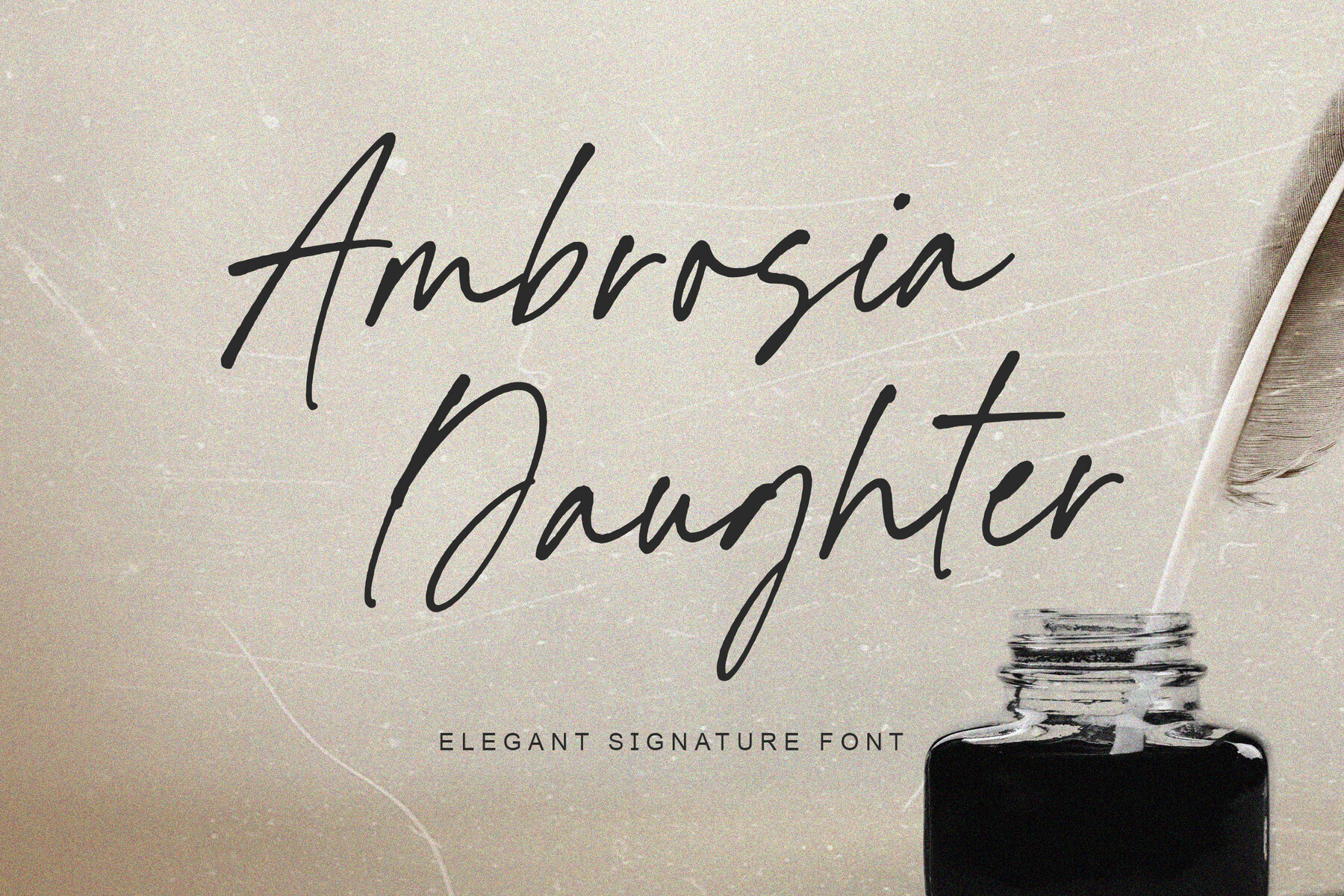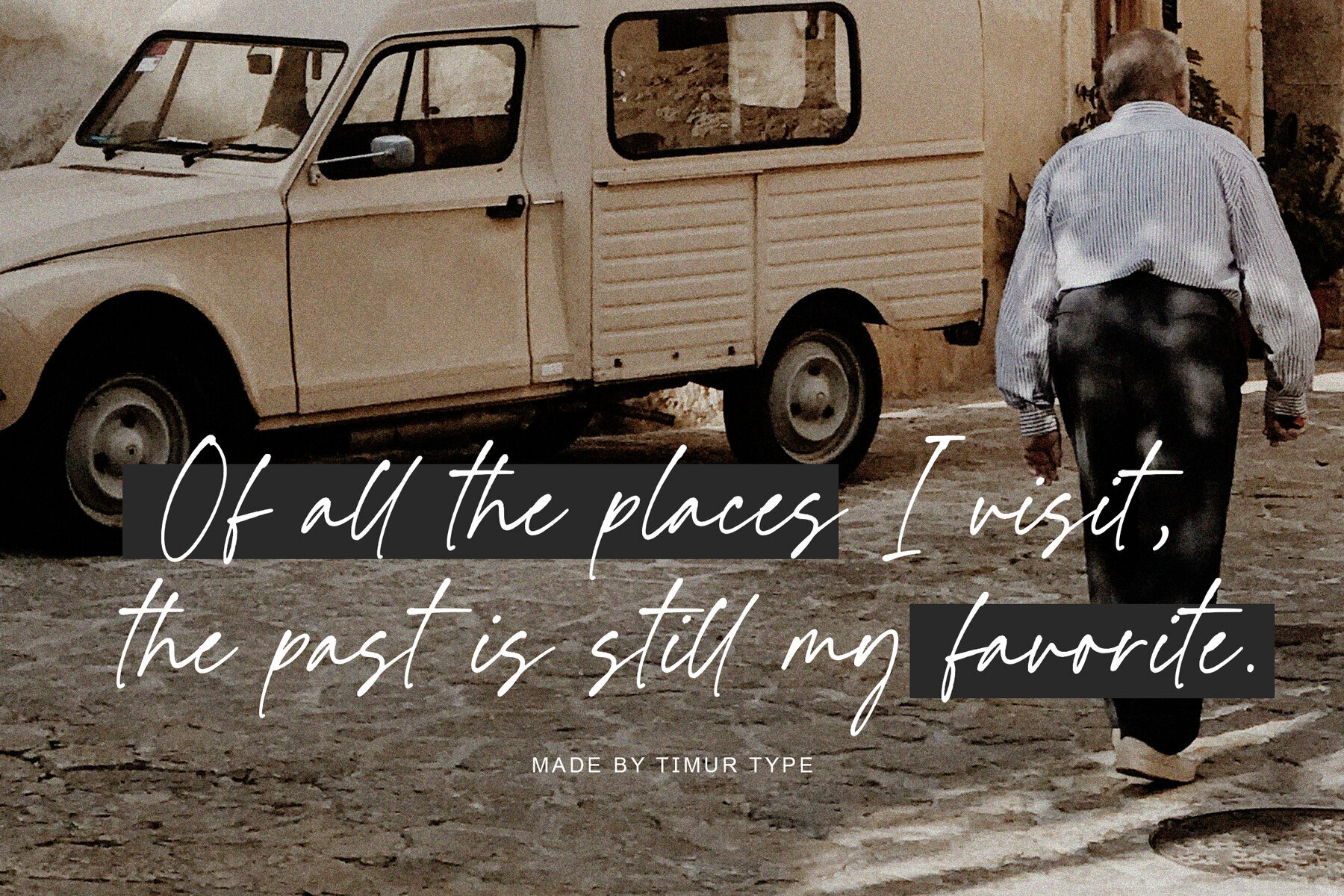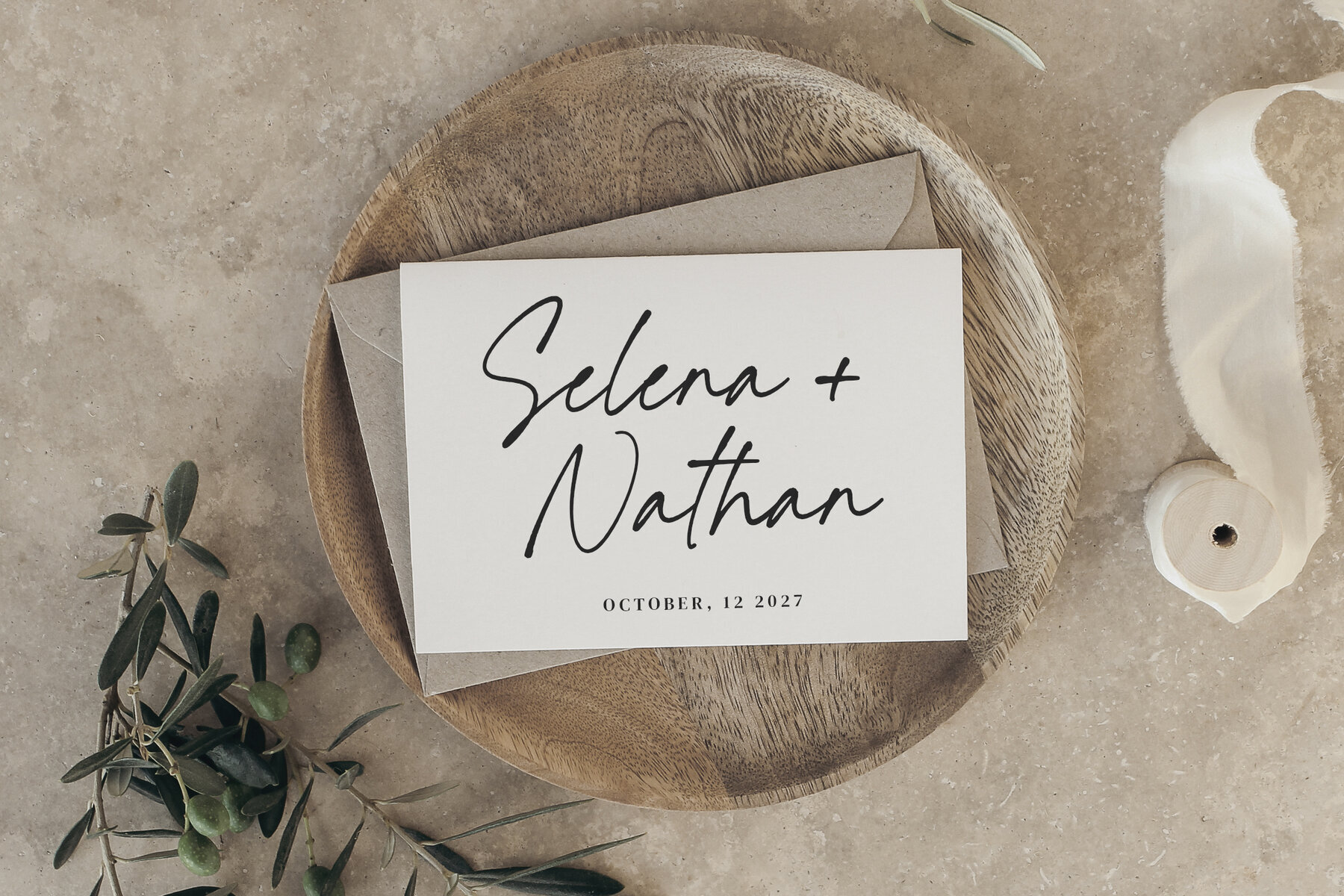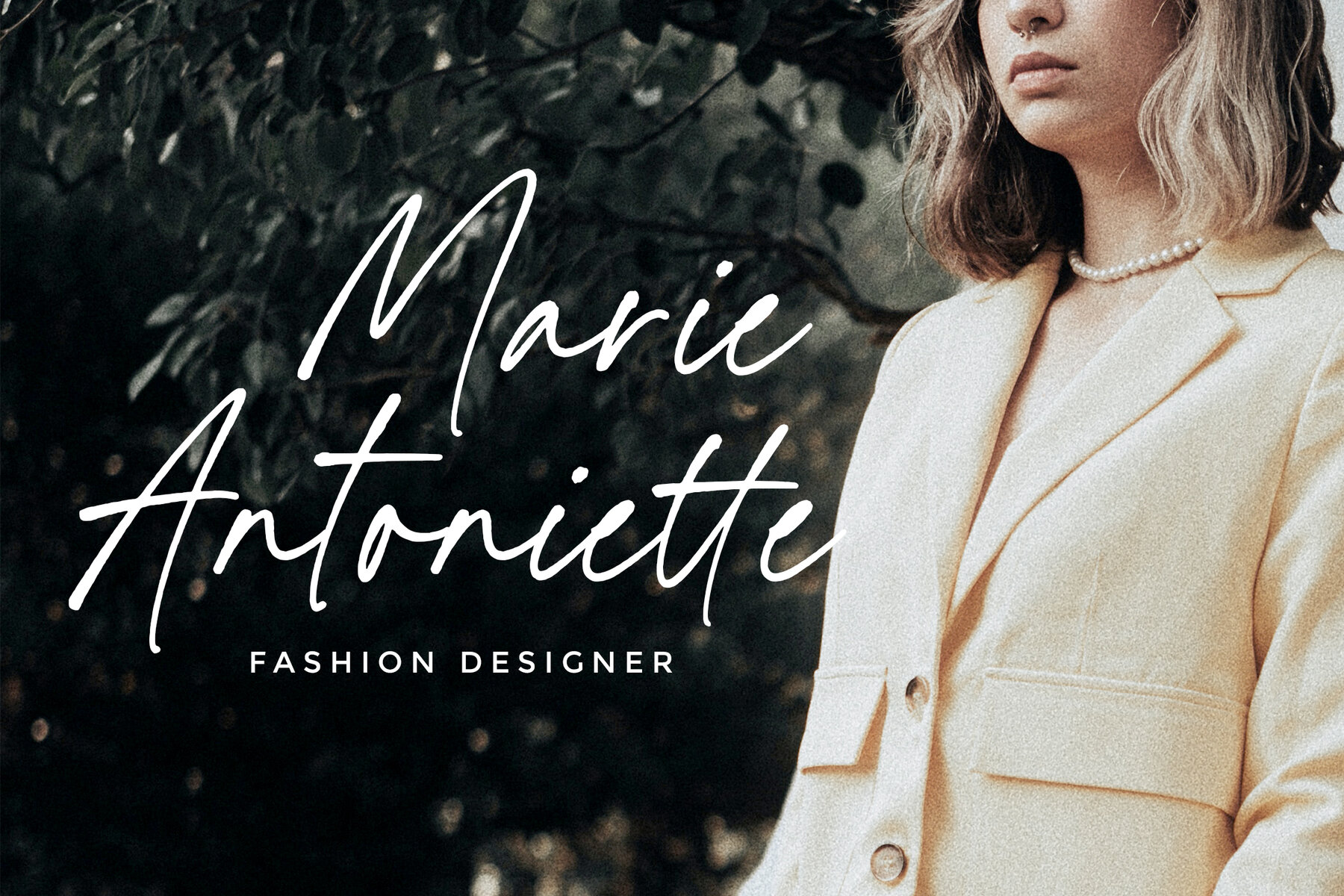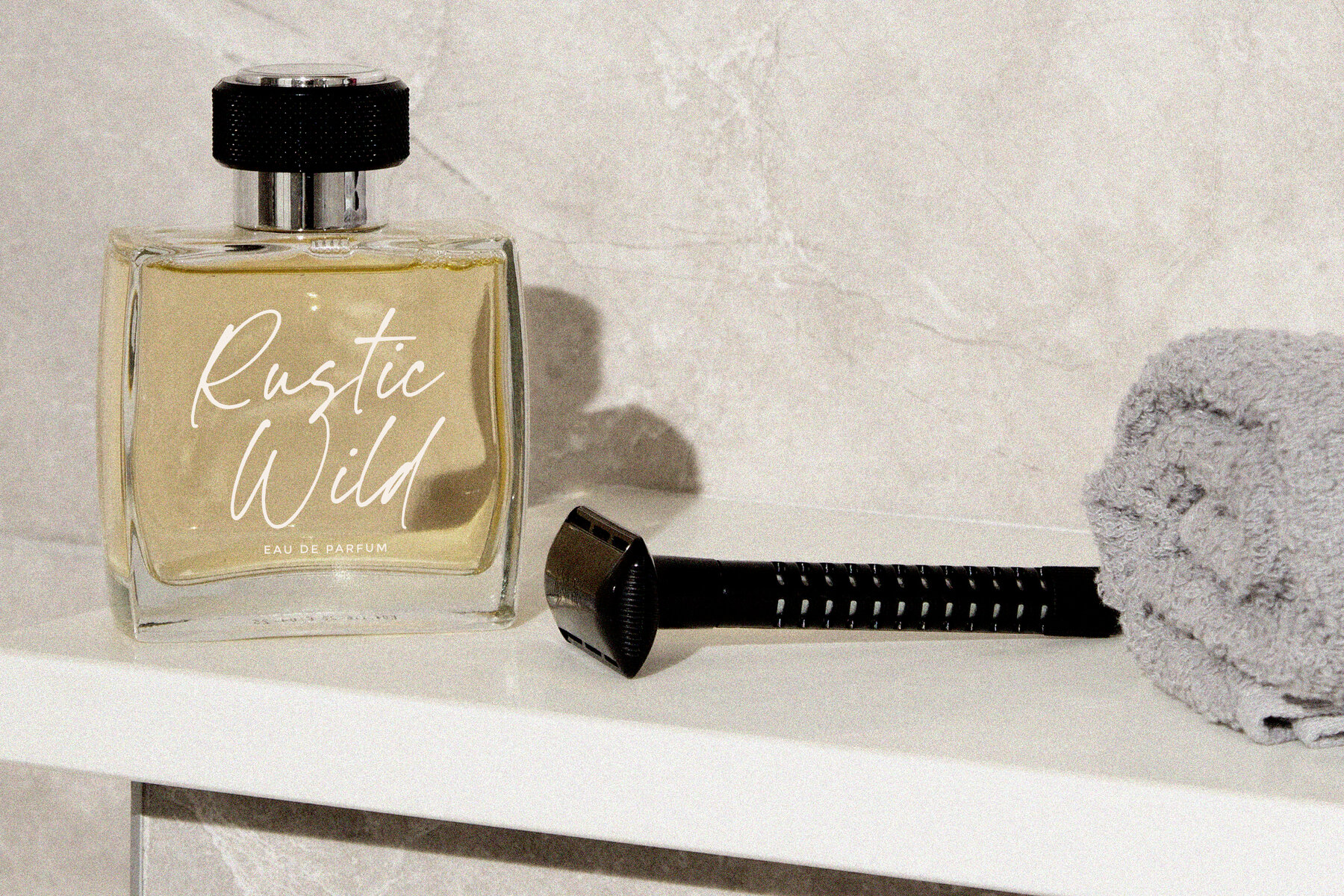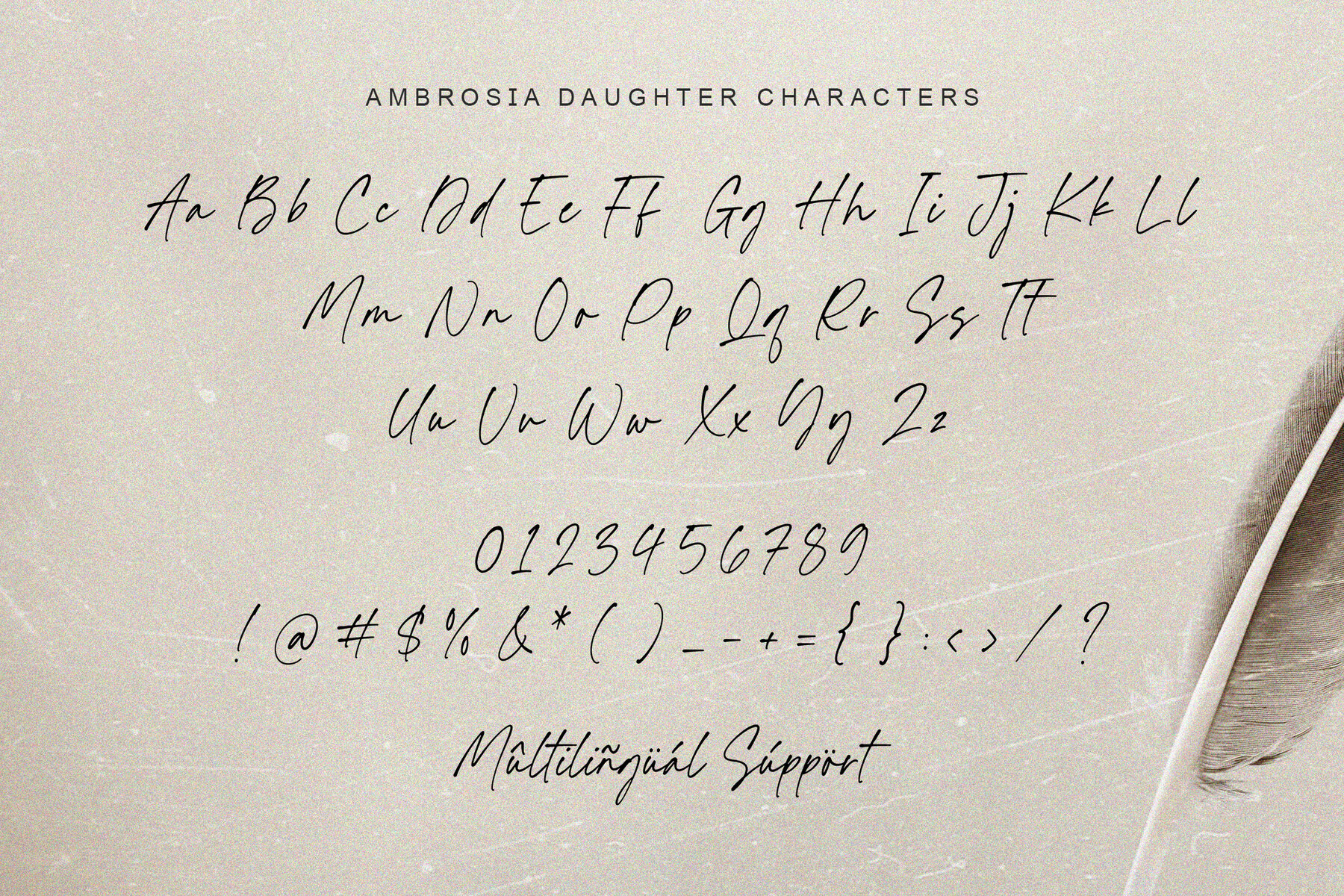
Ambrosia Daughter Font
Ambrosia Daughter
Ambrosia Daughter is a modern handwritten font designed to deliver a fresh, inviting feel to your creative projects. Its warm, personal touch makes it an ideal choice for product packaging, branding, and magazines, adding a unique flair that stands out. Perfect for use in social media, wedding invitations, or simply as a way to express words against any backdrop, this font enhances your design with a touch of elegance.
Whether you're working on a professional branding project or creating personal artwork, Ambrosia Daughter offers a versatile style that suits various applications. Its modern handwritten strokes provide an approachable and intimate look, ensuring your text resonates with a genuine and warm tone. Elevate your designs with the subtle charm of Ambrosia Daughter and let its inviting style enhance your creative expressions.